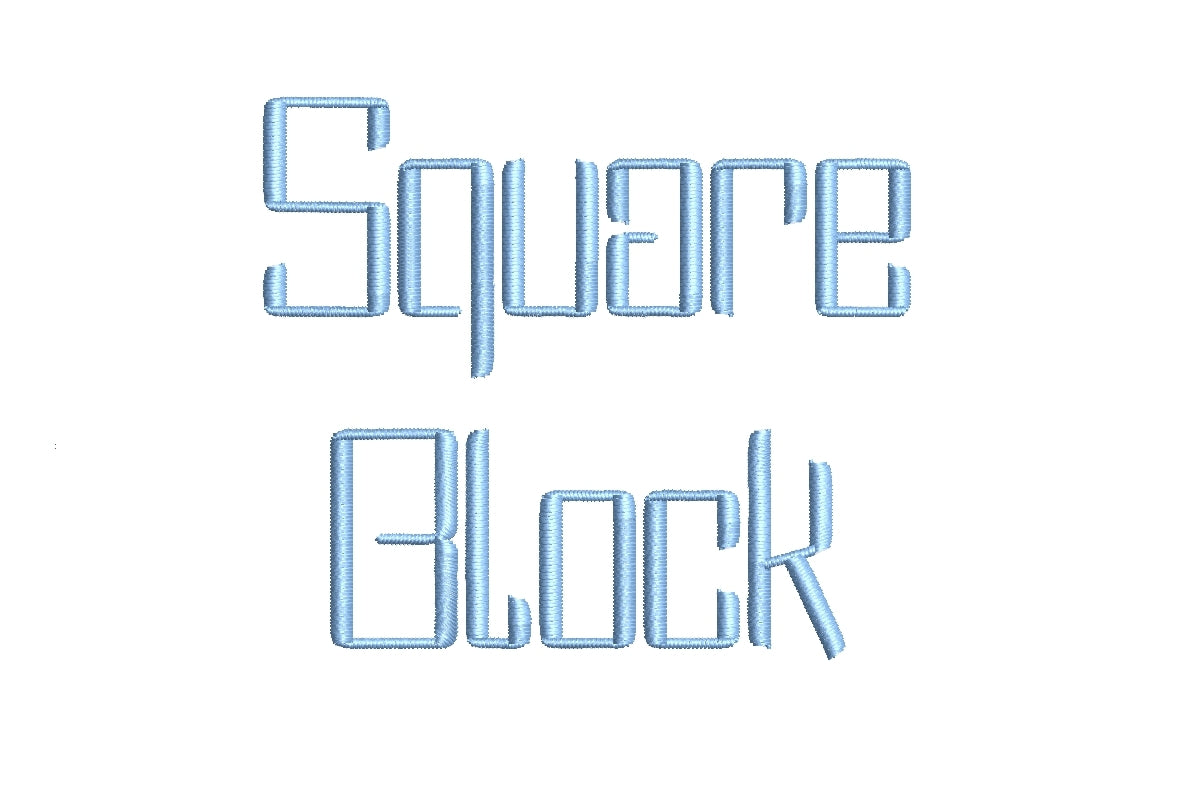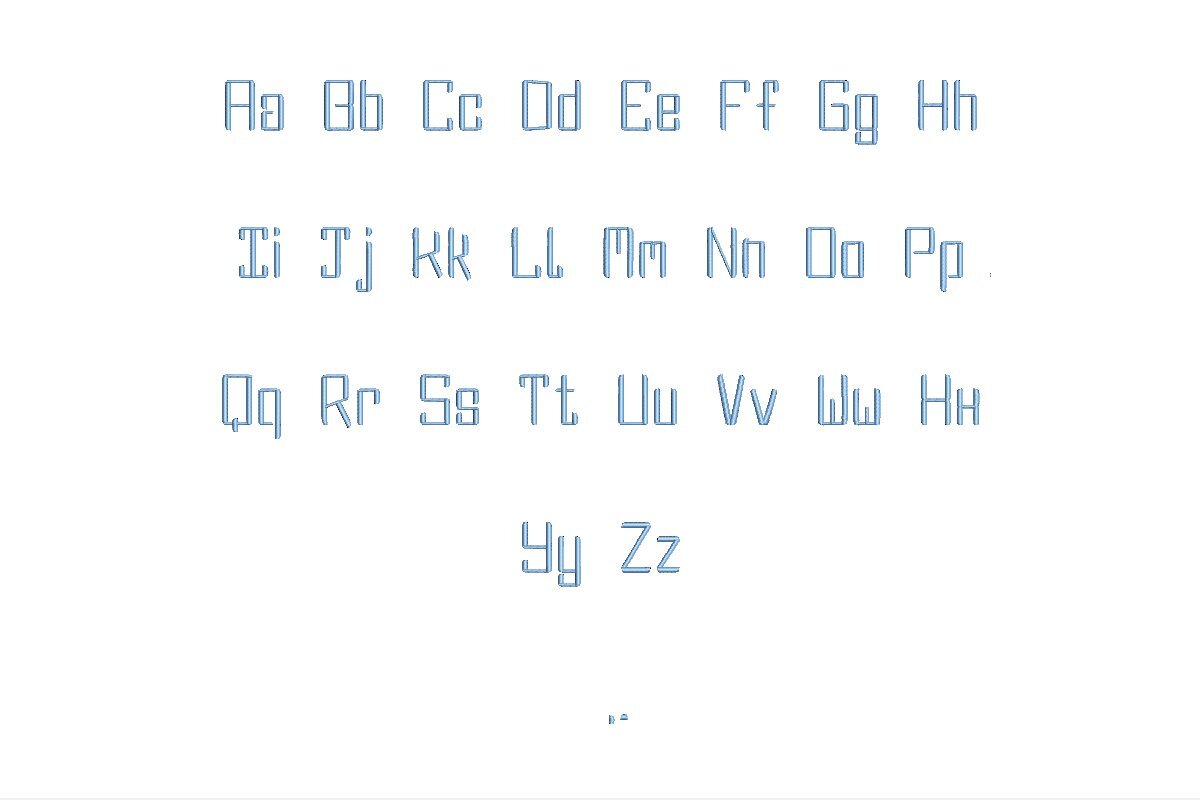
Square Block ESA Font
Elevate your embroidery designs with Square Block ESA font, purpose-built for seamless integration with Wilcom Studio e4.5.6 and Hatch 3 versions and beyond. This font is the embodiment of precision and versatility, ensuring flawless stitching quality for your embroidery projects. Its modern, blocky design exudes style and optimal readability, suitable for various creative applications. The ESA format guarantees pixel-perfect digitization, ensuring effortless integration with both Wilcom Studio and Hatch. Whether crafting monograms, logos, or text, Square Block ESA font streamlines your design process, offering unrivaled clarity and sophistication. Choose Square Block ESA font to achieve professional-grade embroidery with ease.